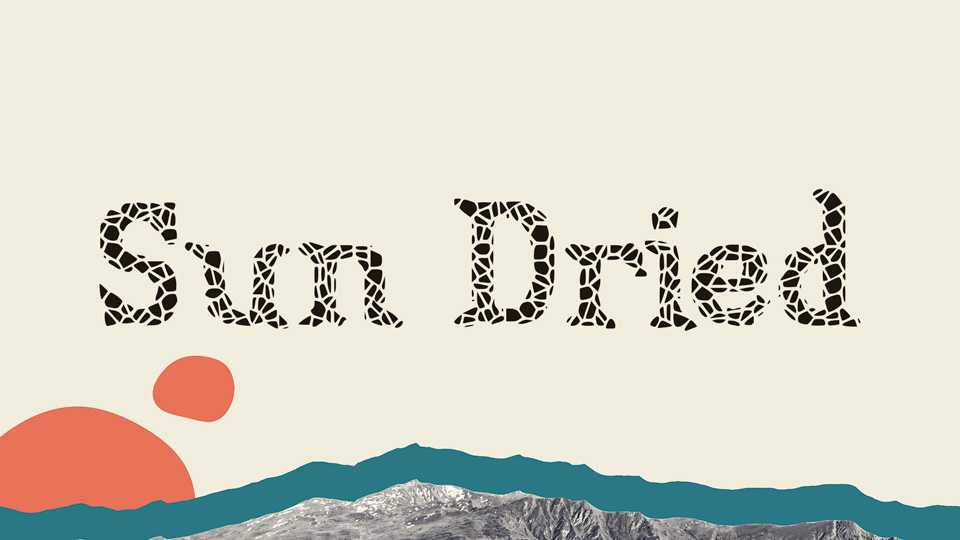
Download Sun Dried font, a decorative display typeface based on lettering that looks like sun baked earth or anything dried and cracking.
Designer: Walter E Stewart